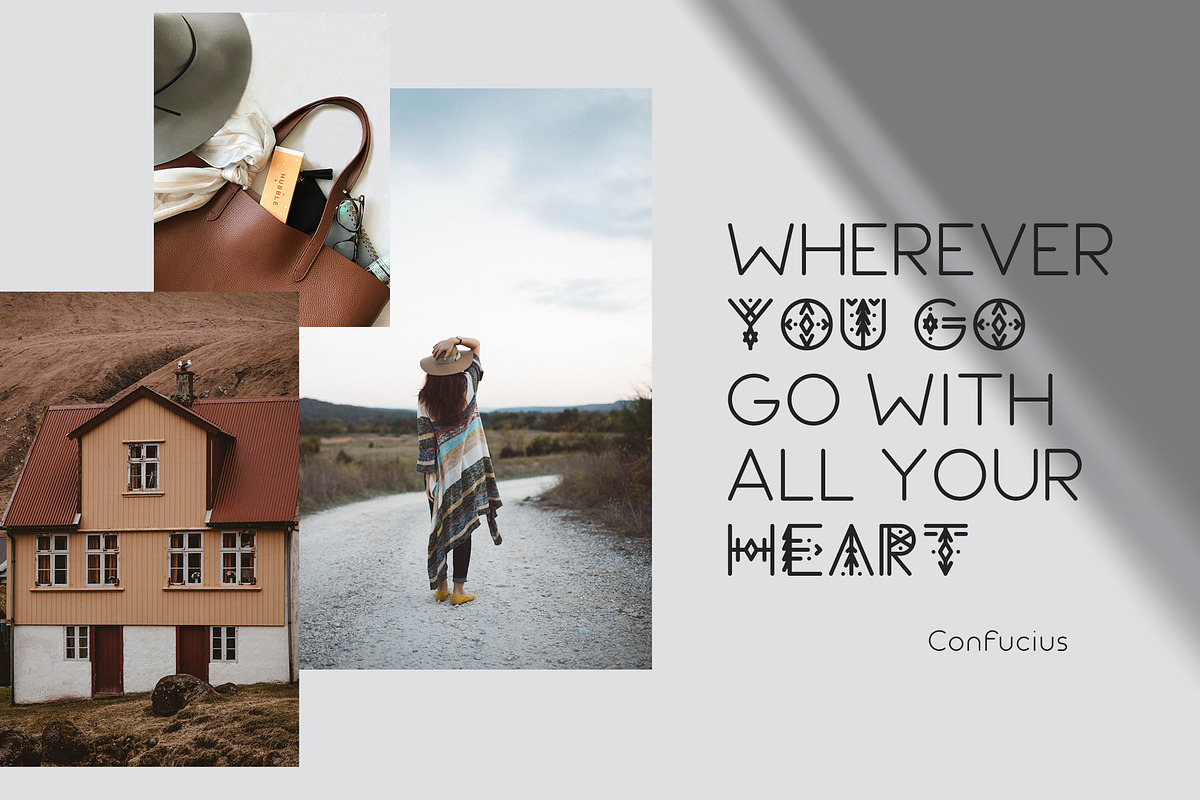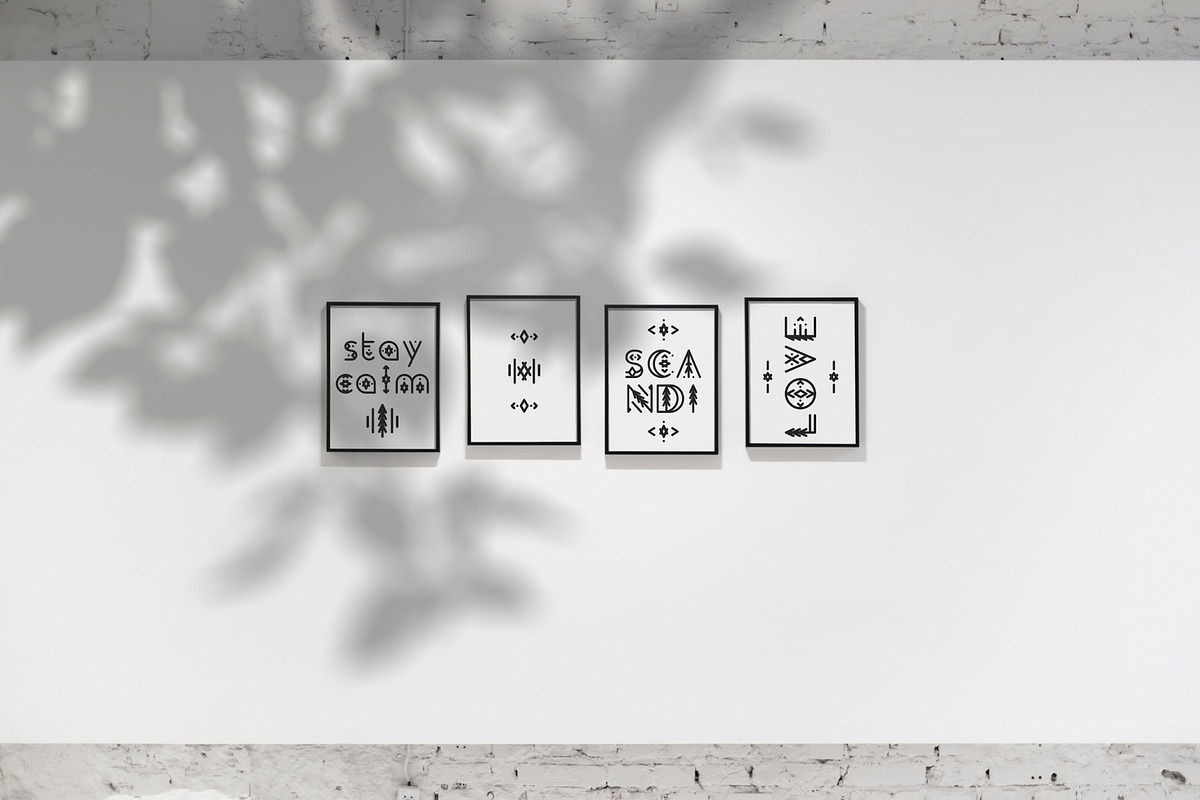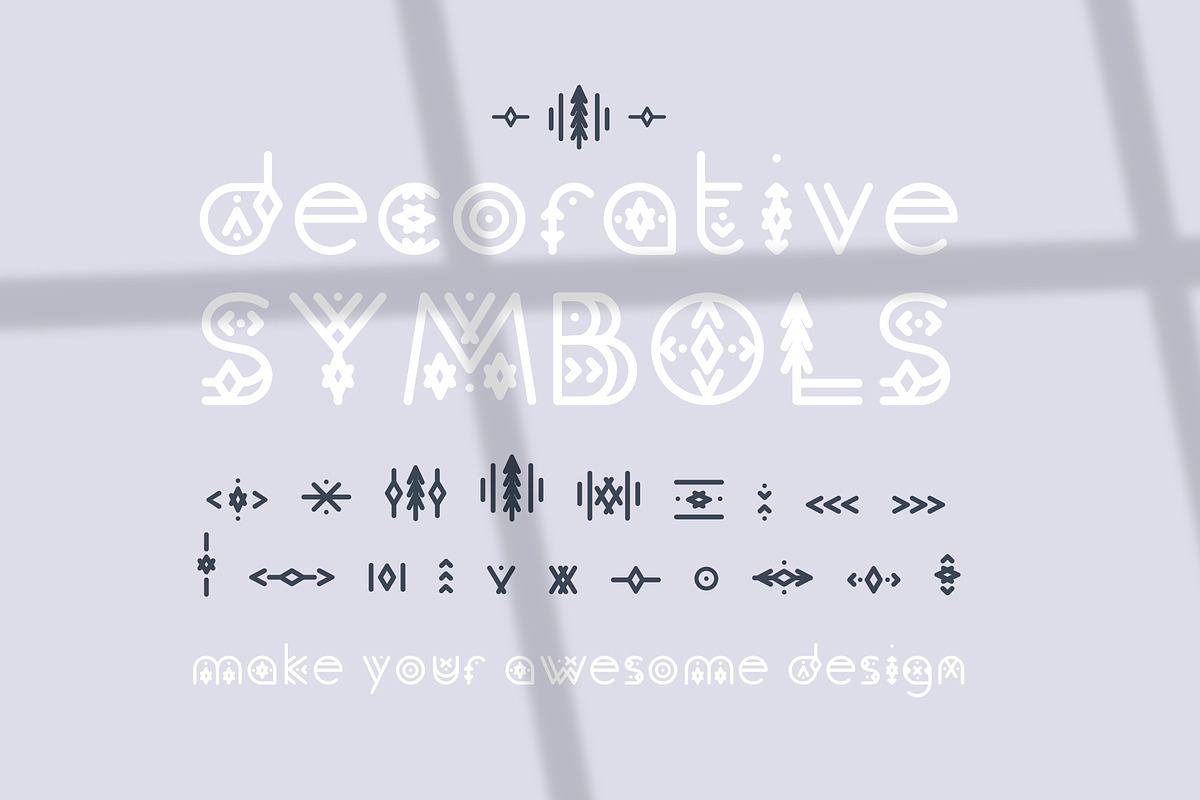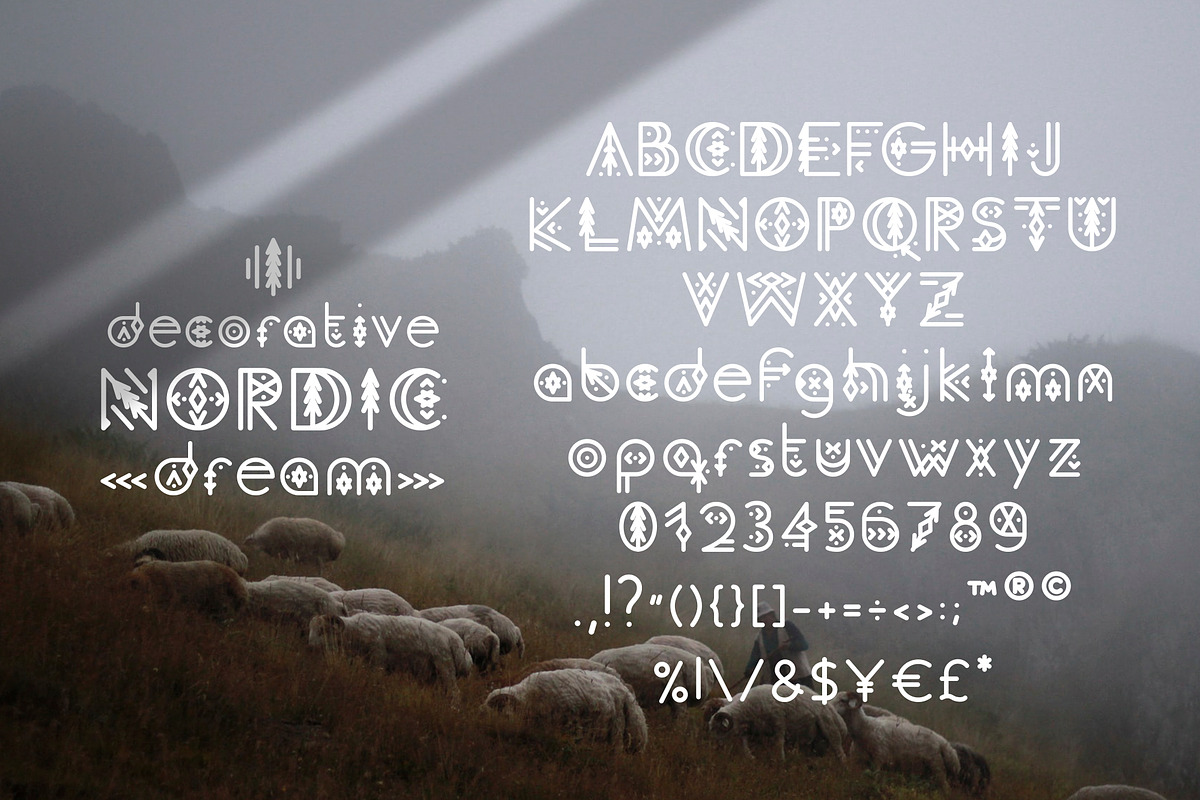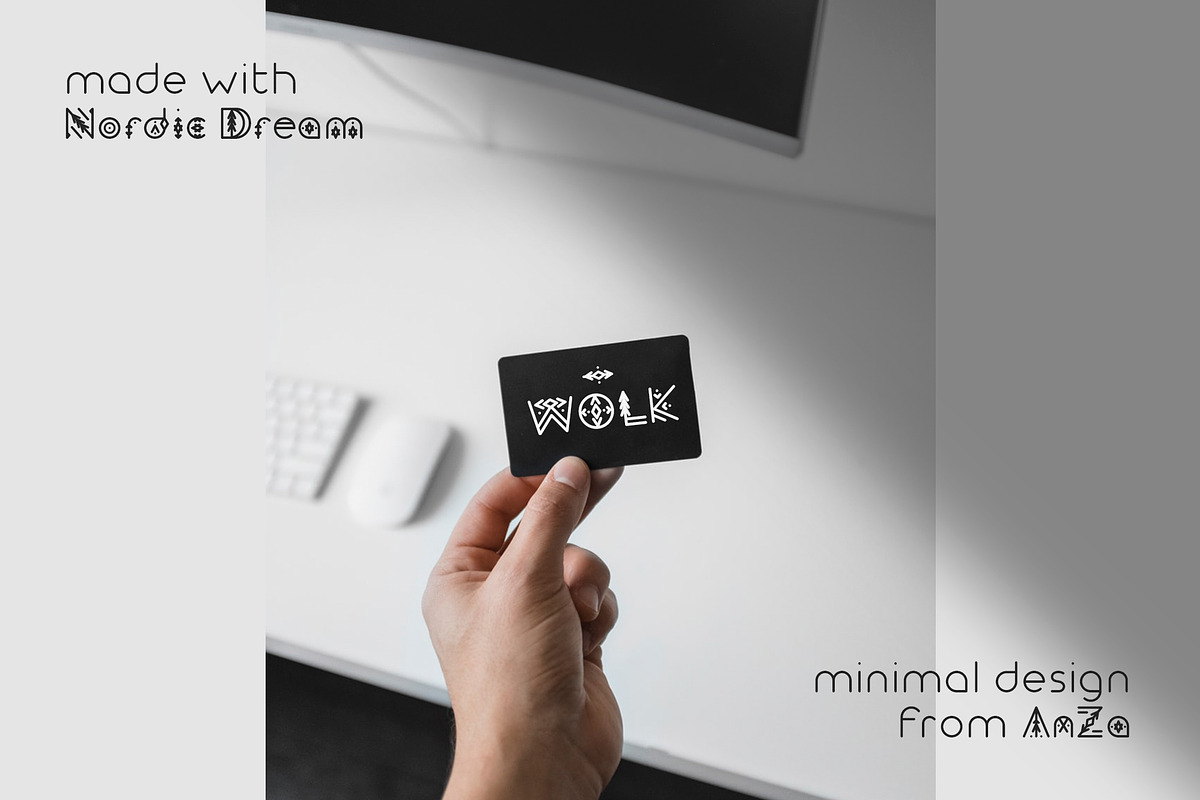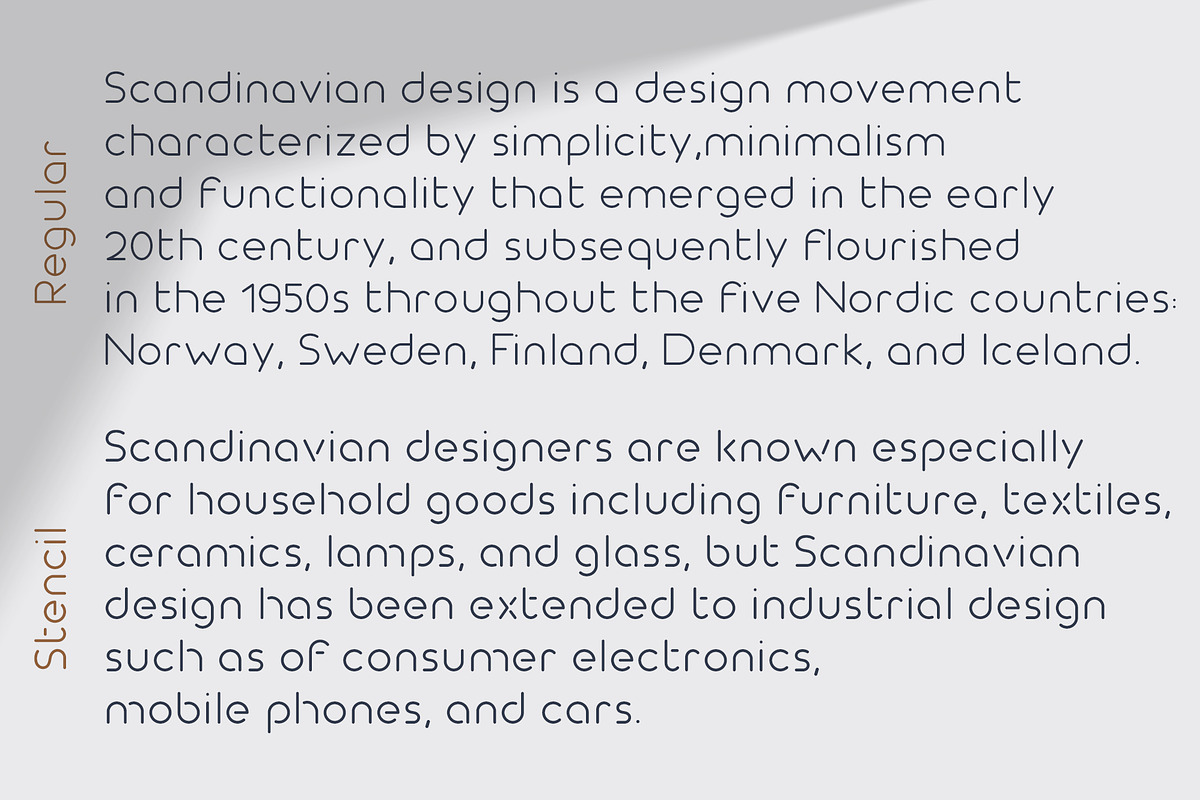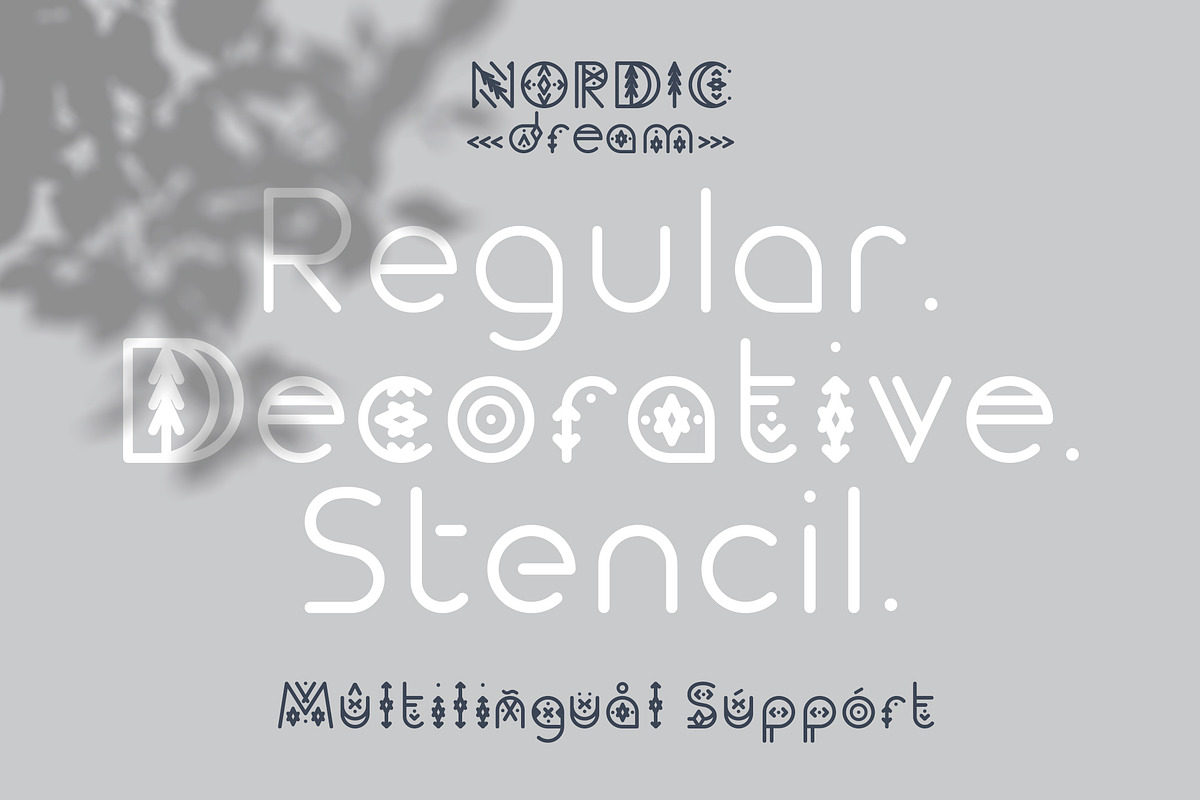
Nordic Dream Font Family
Inspired with Scandinavian aesthetics, i would like to introduce my new font family - Nordic Dream in folk style. It is decorated with Nordic elements, the typeface has regular, stencil and decorative versions, geometric symbols for design. Letters and symbols are perfectly combined with each other. The font is easy to use in various design programs or without any program.
Nordic Dream Regular and Stencil are simple but significant, with minimal design. The owner of endless possibilities. Both three versions are great for magazine publishing, lettering posters and cards, tourist brochures, photo overlays, book covers and article titles. Work great in posters, flyers, logos, monograms, headlines, packaging, advertising, branding and so much more.
Nordic Dream hosts 3 different styles:
Nordic Dream decorative + geometric scandi symbols
Every font has uppercase, lowercase letters, numbers & basic punctuation, multilingual support (French, German, Italian, Norwegian, Portuguese, Spanish, Swedish, Swiss German).